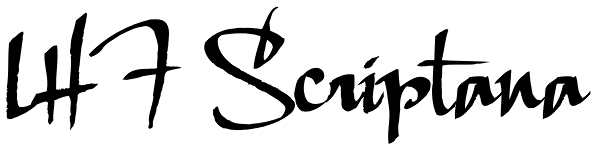
LHF Scriptana
Hand-lettered script created with a calligraphic nib. Has a rough and loose appearance which helps retain its personal feel. Extends and condenses while retaining proportions well.